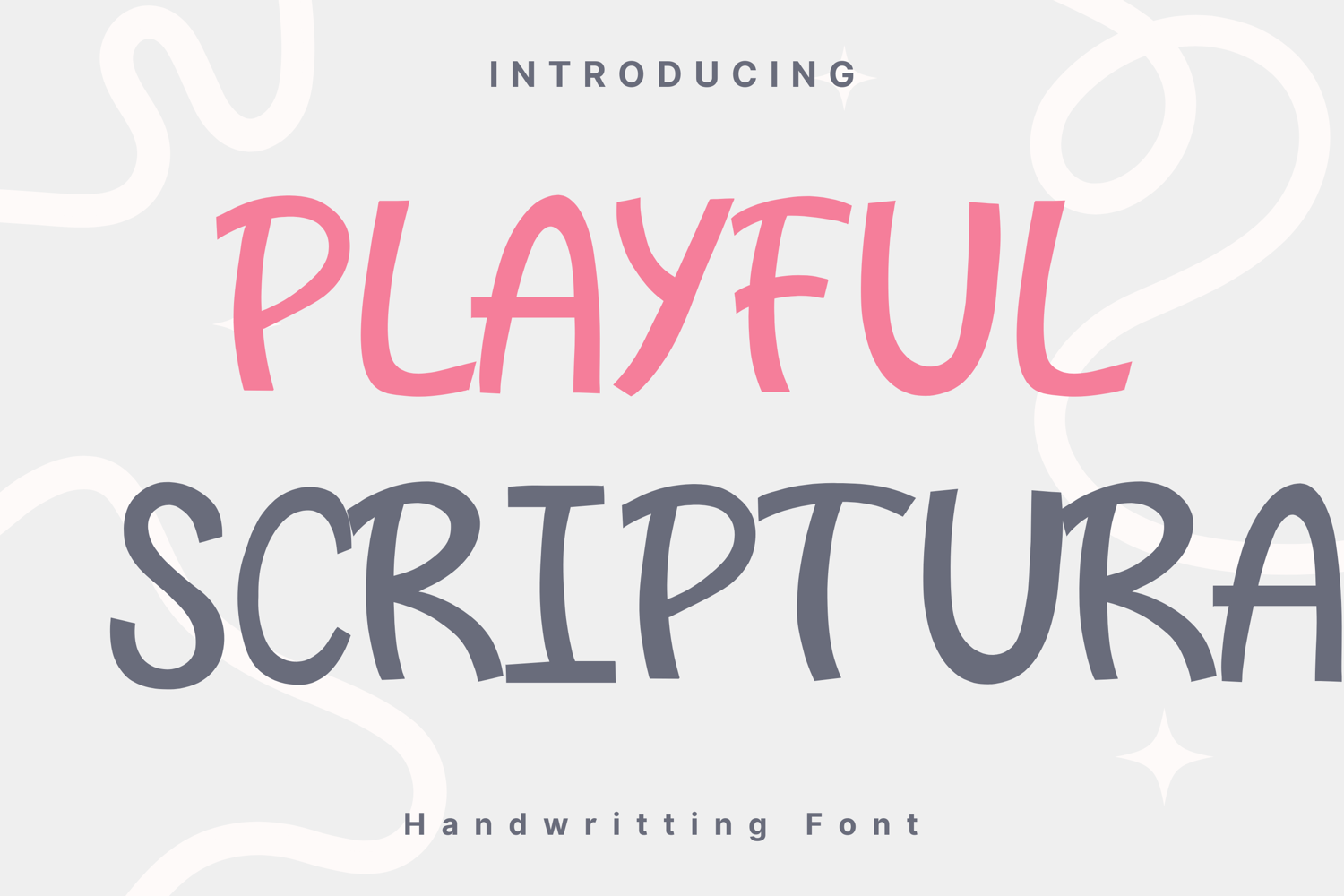
Playful Scriptura Style
Playful Scriptura
Playful Scriptura is a fun, handwritten-style font with a casual and friendly vibe. Its smooth, rounded strokes and slightly quirky letterforms make it perfect for children’s books, comic-style projects, posters, and casual branding. The font blends readability with a playful character, bringing warmth and personality to any creative design.
Playful Scriptura Style